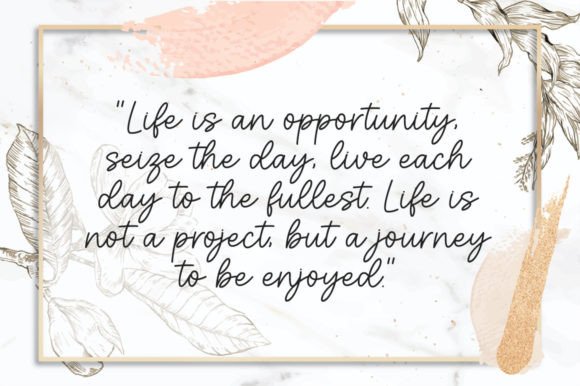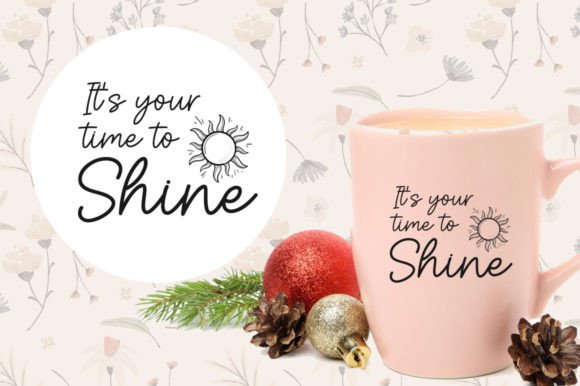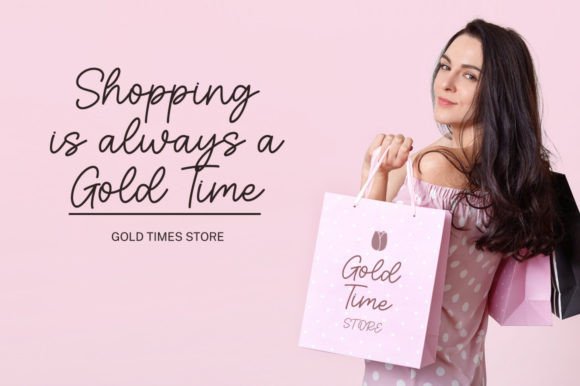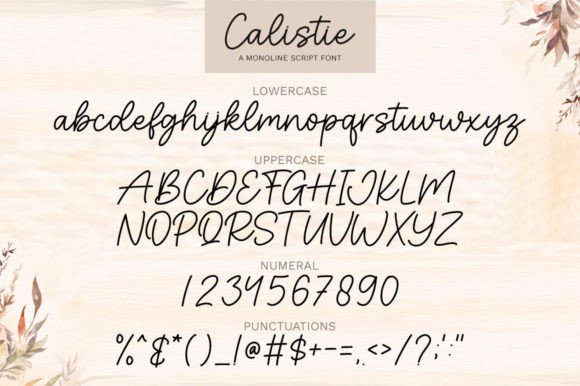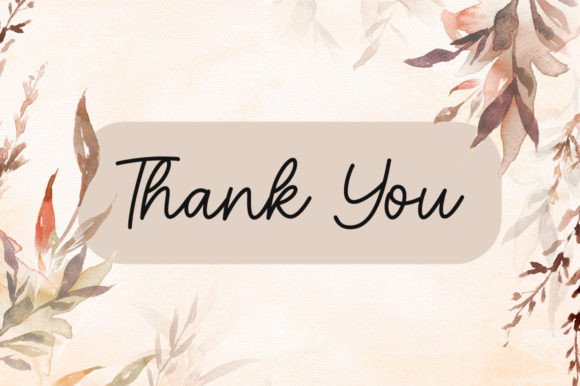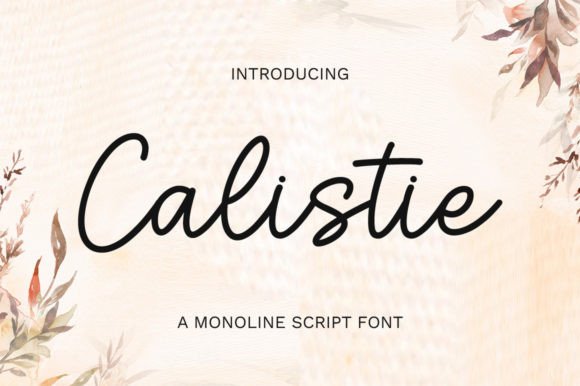
Introducing Calistie Font: Elevate Your Designs with Elegance and Sophistication
In the world of typography, fonts play a crucial role in conveying the tone and personality of a brand or design. For designers and crafters seeking a font that exudes elegance, sophistication, and refinement, Calistie Font is an exceptional choice. This beautiful, well-balanced, and graceful script font is defined by smooth curves, making it perfect for fashion branding, editorial designs, and a wide range of creative projects.
The Characteristics of Calistie Font
Calistie Font boasts a unique set of characteristics that set it apart from other script fonts. Its smooth, flowing curves create a sense of fluidity and movement, making it ideal for designs that require a touch of dynamism and energy. The font’s well-balanced and graceful nature ensures that it remains legible and visually appealing, even at smaller sizes.
One of the standout features of Calistie Font is its versatility. It can be used for a wide range of applications, from fashion branding and editorial designs to packaging, advertising, and digital media. Whether you’re creating a luxury brand identity, designing a fashion magazine, or crafting a beautiful wedding invitation, Calistie Font is an excellent choice.
The Benefits of Using Calistie Font
So, why choose Calistie Font for your next design project? Here are just a few benefits of using this exceptional script font:
• Elegance and Sophistication: Calistie Font exudes refinement and luxury, making it perfect for high-end brands and designs.
• Versatility: This font can be used for a wide range of applications, from fashion branding to editorial designs.
• Legibility: Despite its elegant nature, Calistie Font remains highly legible, even at smaller sizes.
• Unique Character: Calistie Font has a distinct personality that sets it apart from other script fonts.
Using Calistie Font in Your Designs
Calistie Font is incredibly easy to use and can be incorporated into your designs in a variety of ways. Here are a few tips for getting the most out of this beautiful script font:
• Pair it with Bold Fonts: Combine Calistie Font with bold, sans-serif fonts for a striking contrast.
• Use it for Headlines: Calistie Font is perfect for headlines, titles, and captions.
• Experiment with Colors: Try pairing Calistie Font with a range of colors to create a unique and eye-catching design.
Who is Calistie Font Suitable For?
Calistie Font is an excellent choice for a wide range of designers, crafters, and businesses, including:
• Fashion Brands: Elevate your brand identity with a font that exudes luxury and sophistication.
• Editorial Designers: Add a touch of elegance to your magazine, newspaper, or blog designs.
• Graphic Designers: Expand your font library with a versatile and beautiful script font.
• Crafters: Use Calistie Font to add a personal touch to your handmade crafts, such as wedding invitations or stationery.
Font Name Calistie Font
Author Graphix Line Studio
In conclusion, Calistie Font is a stunning, elegant, and versatile script font that is perfect for designers and crafters seeking to elevate their designs. With its smooth curves, well-balanced nature, and unique character, Calistie Font is an exceptional choice for fashion branding, editorial designs, and a wide range of creative projects. Whether you’re a seasoned designer or a crafty DIY enthusiast, Calistie Font is sure to become a valuable addition to your font library.